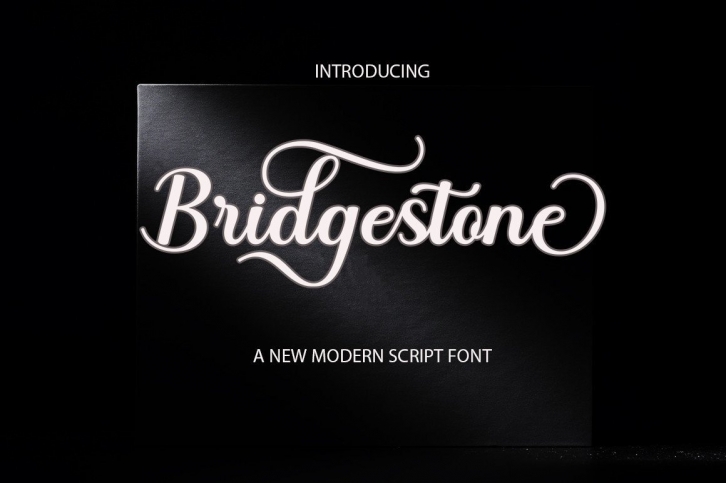
Bridgestone Smile is an exquisite handwritten font, masterfully designed to become a true favorite. It maintains its influences while feeling contemporary and fresh. Fall in love with it and bring your projects to the highest levels!